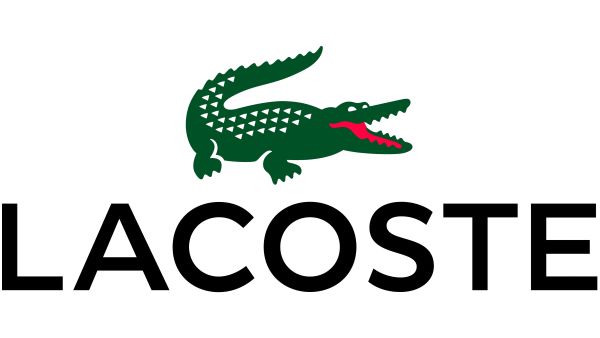
Lacoste Font
What Font is Lacoste?
Lacoste Font features a clean, modern, and timeless design that perfectly complements the brand’s elegant yet sporty identity. The closest match to the original Lacoste logo is Montserrat Semi Bold, a free font that captures the same balanced proportions and refined geometric shapes. With its simple, confident letterforms, this alternative offers a great option for those who want to recreate the signature Lacoste style in their own projects.
About Lacoste
Lacoste is a French fashion brand founded in 1933 by René Lacoste and André Gillier. Recognized globally by its iconic green crocodile logo, Lacoste revolutionized casual fashion with the introduction of the classic polo shirt. The brand combines sporty elegance with French sophistication, offering apparel, footwear, accessories, and fragrances that embody a timeless and effortlessly chic lifestyle.